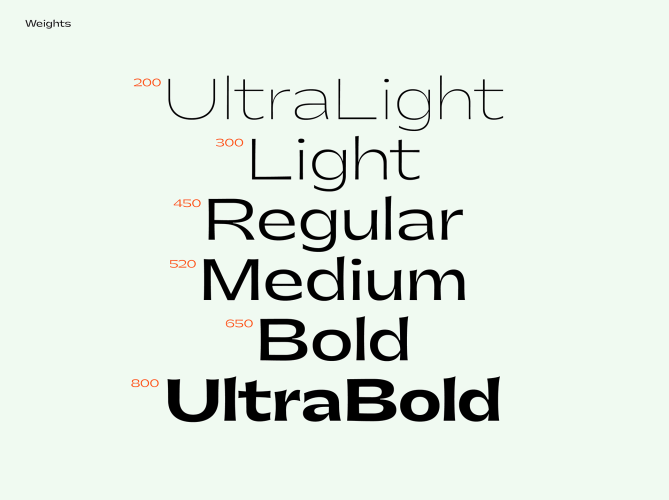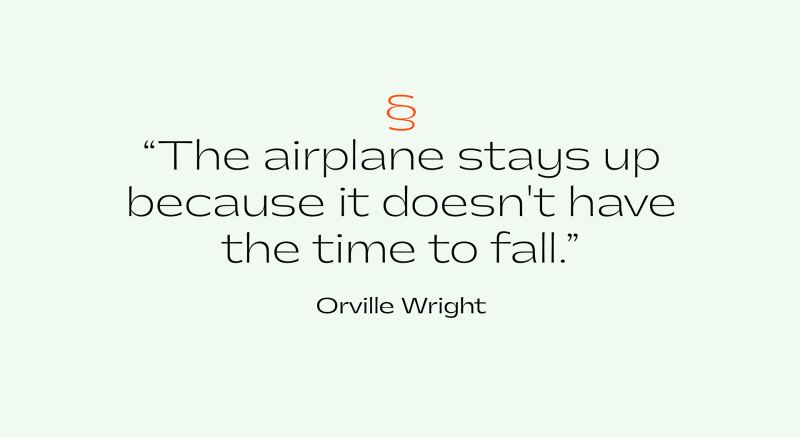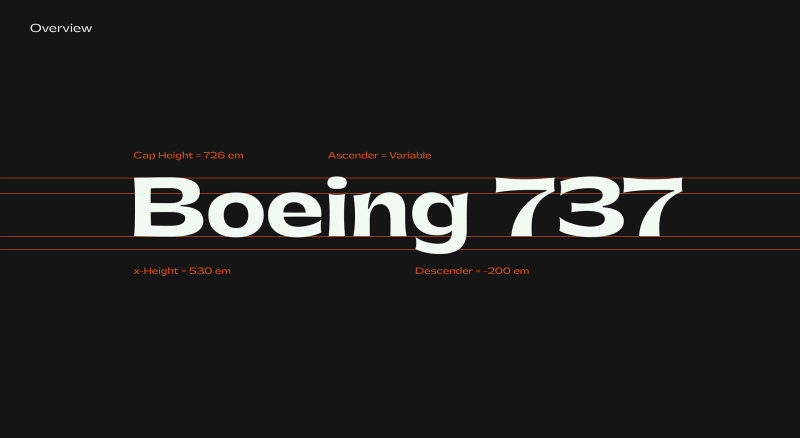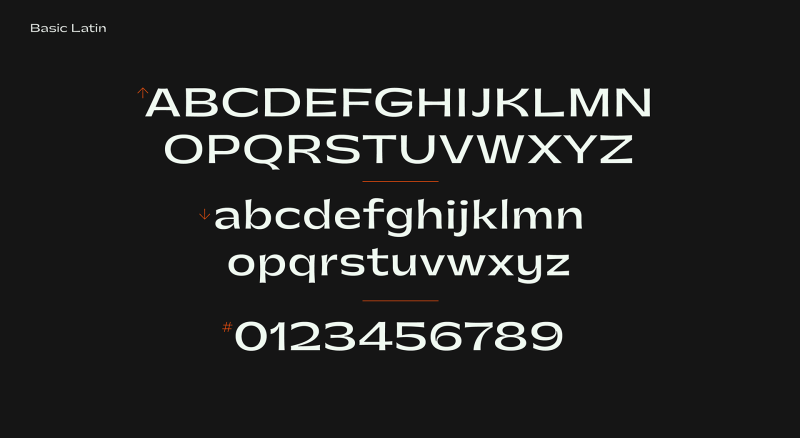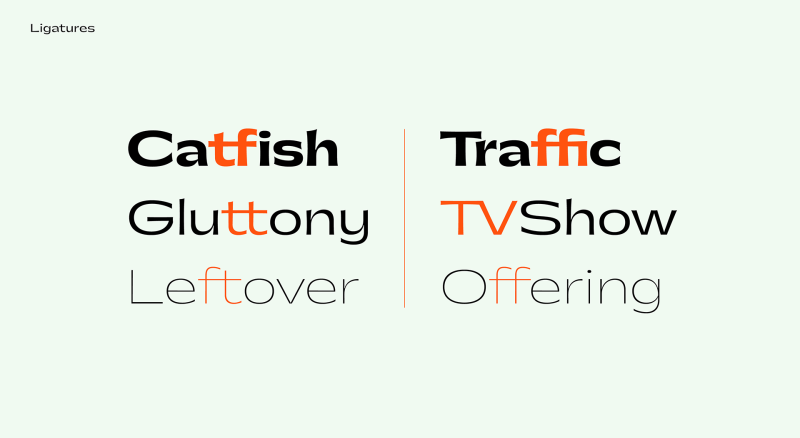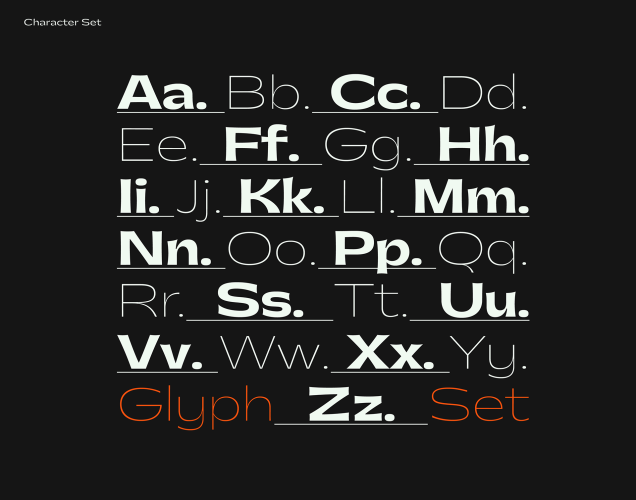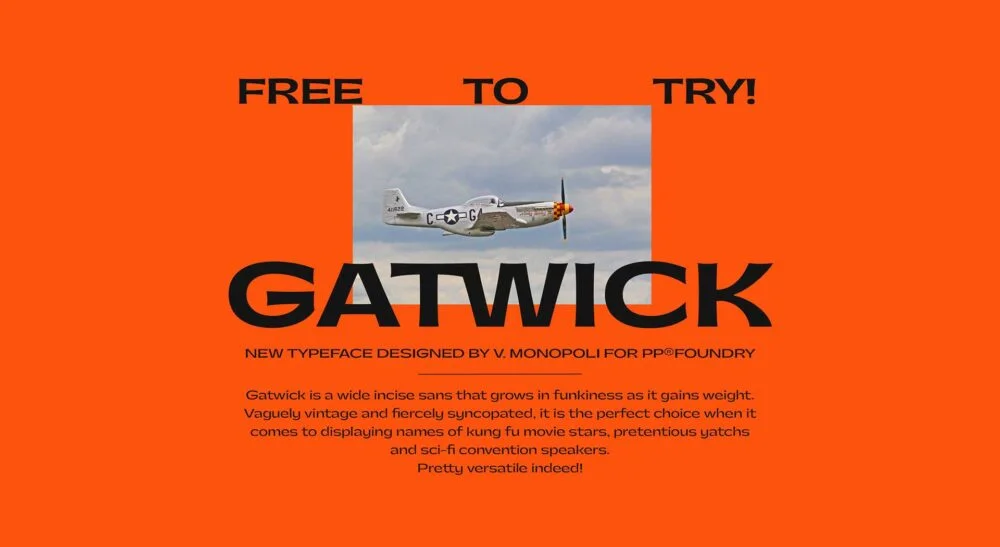
Gatwick Font
Gatwick Font is a wide incise sans that grows in funkiness as it gains weight. Vaguely vintage and fiercely syncopated, it is the perfect choice when it comes to displaying names of kung fu movie stars, pretentious yachts, and sci-fi convention speakers. Pretty versatile indeed!
Where Gatwick Font works best
Gatwick Font keeps its shape at 14 and 16 pixels, which is where interface text actually lives. Numbers and capitals stay distinguishable in tables.
Presentations are read at a distance; a clean sans with a strong bold is the safest hierarchy you can build in a hurry.
Simple letterforms survive angles, glare and movement, so Gatwick Font suits door signs, menus boards and exhibition panels.
What kind of work does Gatwick Font suit?